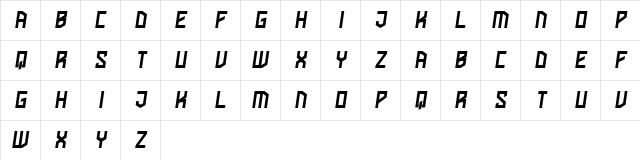
Complete Aggressor Futristic Bold glyph index. Displaying only characters natively supported by Aggressor Futristic Bold font.
Aggressor Futristic is a composed and adaptable typeface that performs quietly and consistently across a wide range of design contexts. Its bold stroke weight gives it real presence on the page.